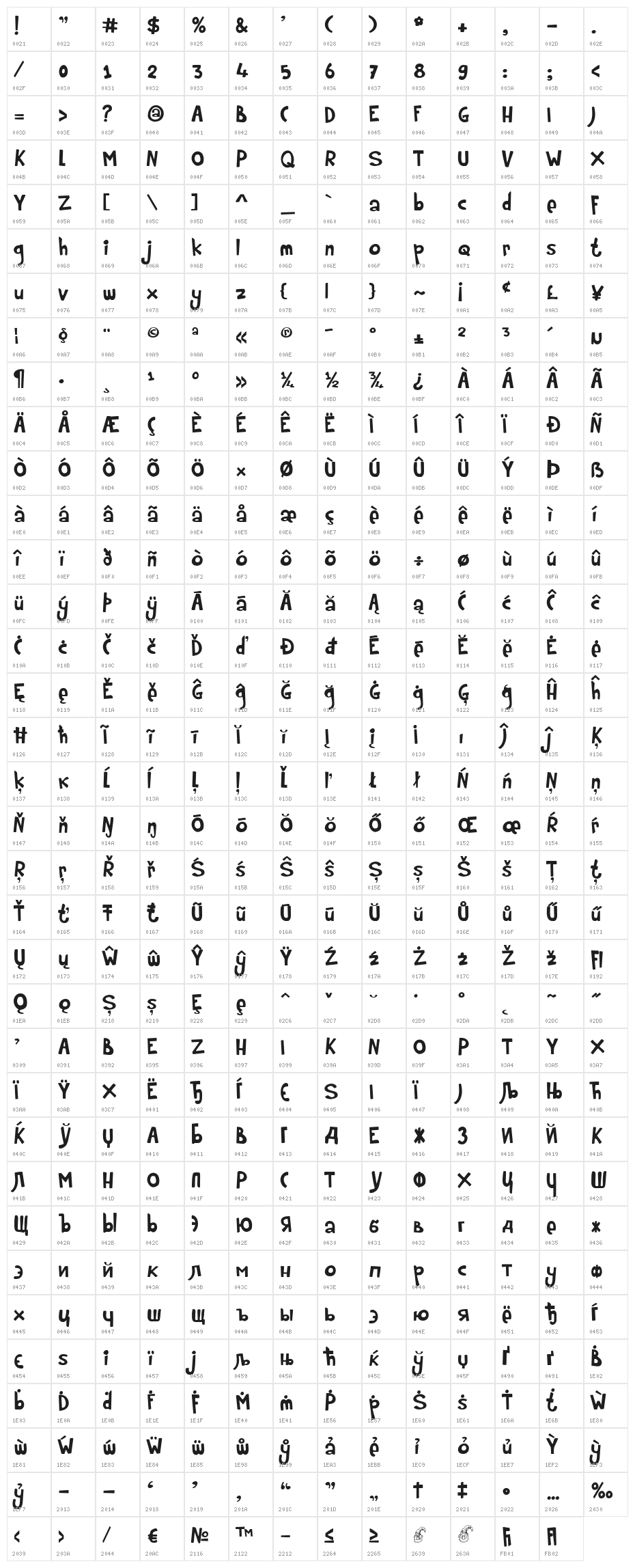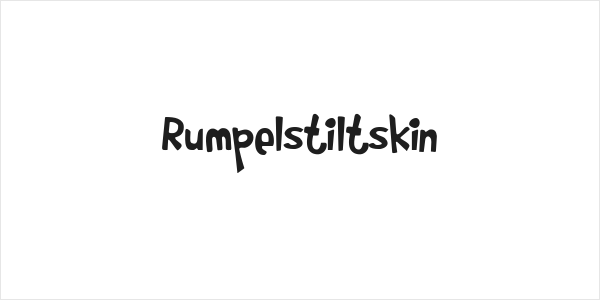
Rumpelstiltskin Font
Rumpelstiltskin Description
This playful and whimsical font features bold, rounded characters with a hand-drawn feel. The uppercase letters are slightly irregular, giving them a lively and dynamic appearance. The lowercase letters maintain the same playful style, with some characters having unique, exaggerated features. The numbers are bold and consistent with the overall style, while the special characters add a quirky touch. This font's charm lies in its imperfect, organic shapes, making it ideal for creative and fun projects.
| Overall Style | Whimsical |
| Proposed Projects | Perfect for children's books, playful branding, greeting cards, and creative posters. |